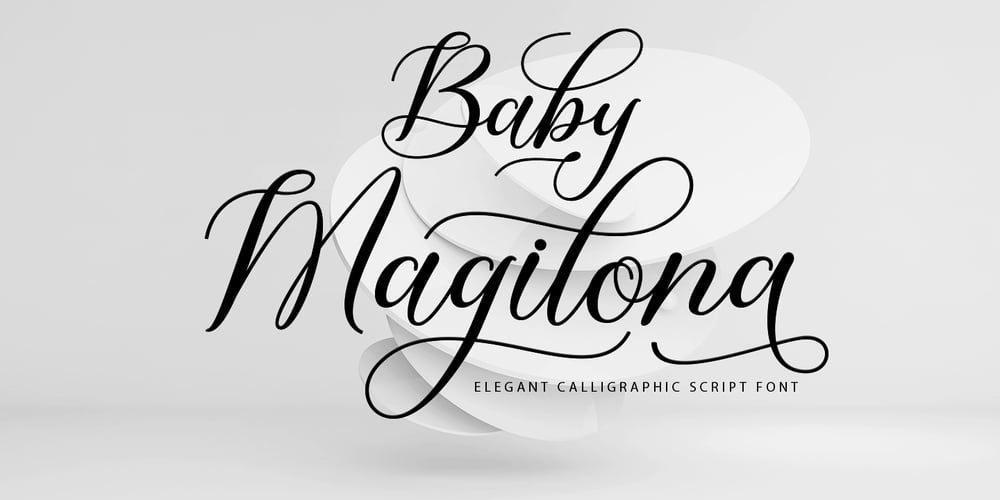
Baby Megilona
Baby Megilona font
Baby Megilona Font Family was designed by khaidir and published by Tertoecreative. Baby Megilona contains 1 styles and family package options. Baby Megilona fonts embody the artistry of hand-written letters, blending grace and detail. They usually have fluid, flowing lines and embellished strokes that convey a sense of timeless elegance. The fonts vary in style from ornate and classic to modern and minimalistic, with each letter often featuring unique flourishes and connecting strokes. This decorative quality makes calligraphy fonts ideal for formal events, invitations, and any design where a touch of sophistication and beauty is desired. The ultimate goal of calligraphy fonts is to enhance the visual appea